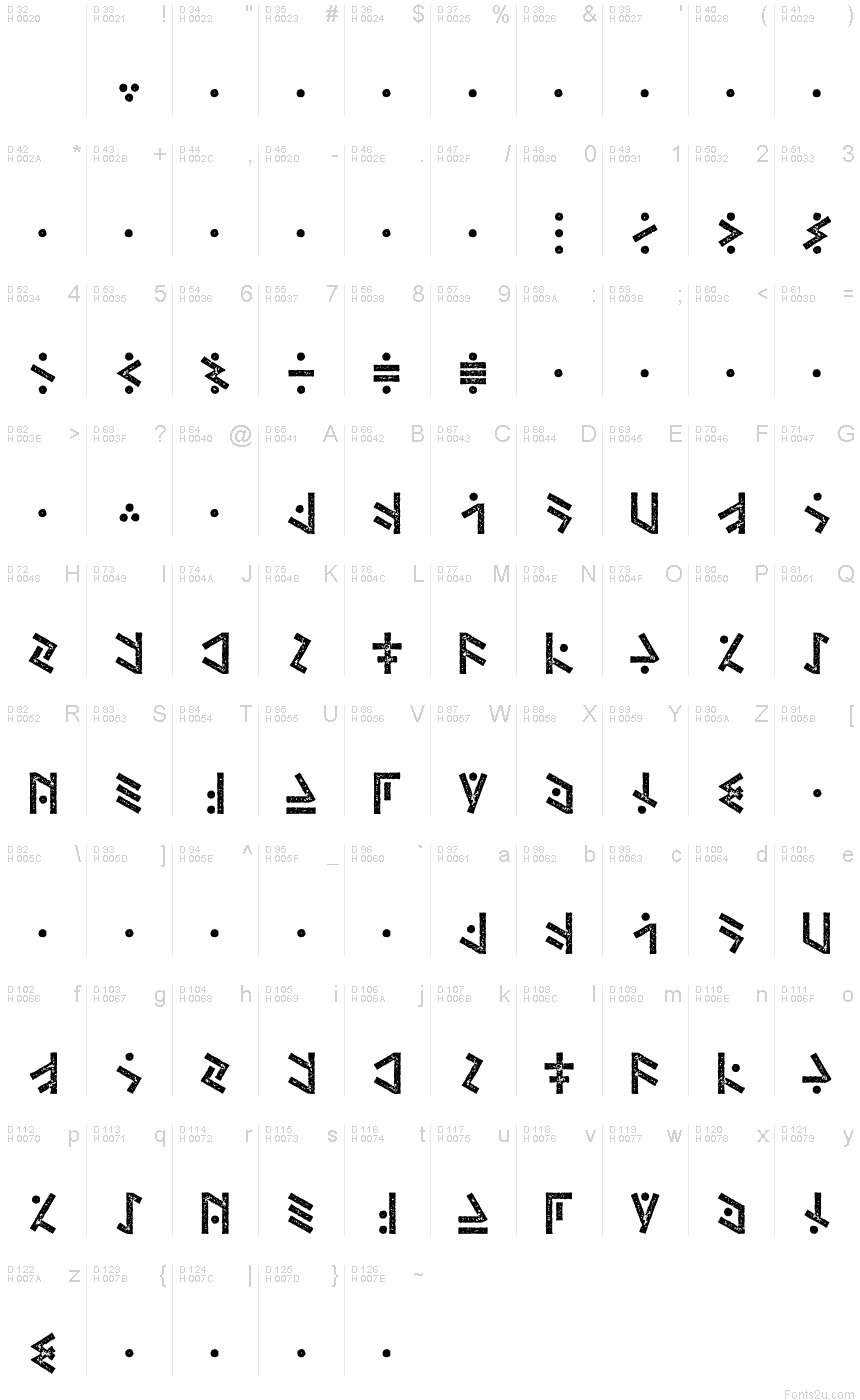
Temphis Dirty
Temphis Dirty by S. John Ross is a free distressed runic dingbat font with a rough, chipped texture that makes the symbols feel excavated rather than drawn. The marks mix straight strokes, sharp angles, dots, and maze-like turns, giving the set a hand-cut, archaic character with just enough grit to keep it from feeling ceremonial.
This free font fits best where you want signs and symbols to carry mood as much as meaning - on fantasy book covers, game title cards, zine headers, poster accents, and mysterious chapter openers. It also works well for monograms or short emblem-like lines, because the letters read like fragments of an invented script.